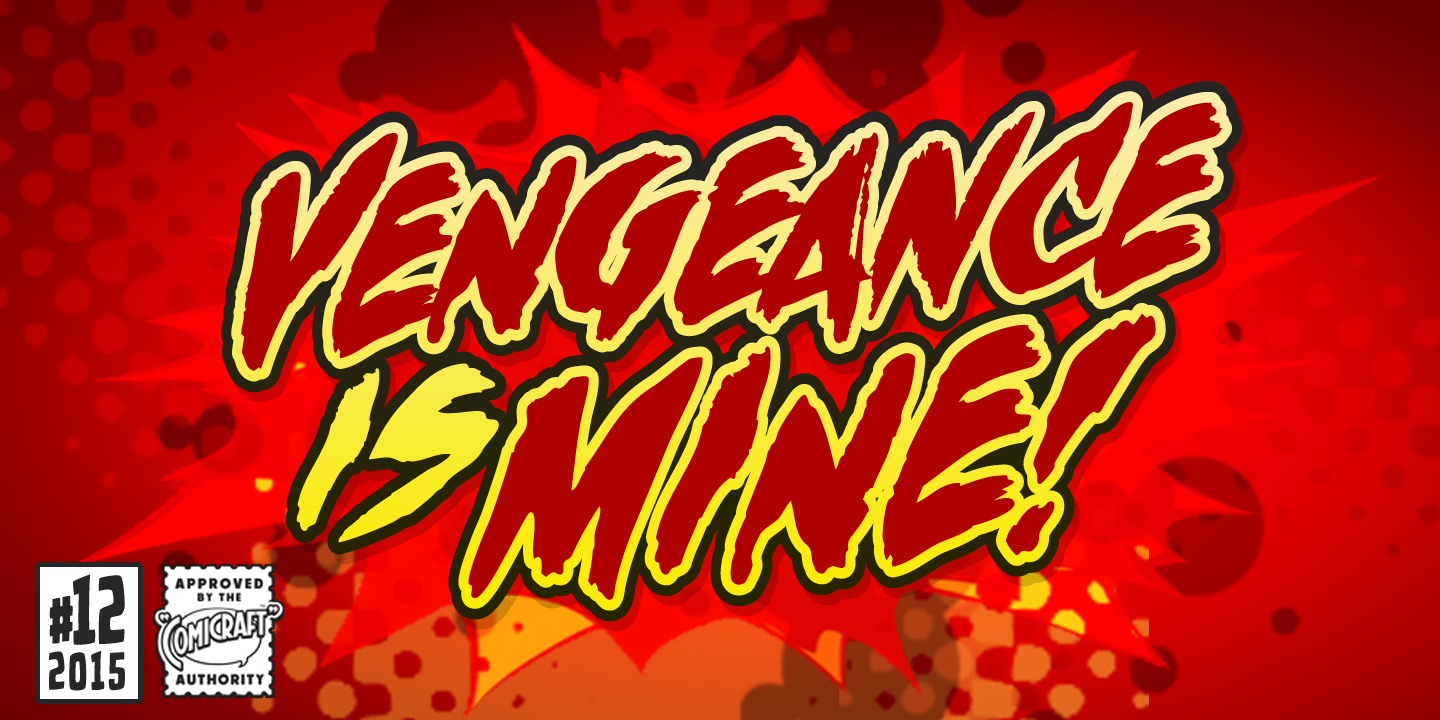
The Vengeance Is Mine Font is an electrifying choice for projects that demand a dark, gritty, and intensely dramatic aesthetic with an undeniable edge. It’s perfectly suited for horror movie titles, thriller book covers, heavy metal album art, dark graphic novels, posters for suspenseful events, and any design that requires a powerful, aggressive, and highly impactful typeface. Its unsettling and commanding character makes it ideal for conveying a sense of danger, mystery, and raw emotion.
What makes Vengeance Is Mine Font so exciting is its inherent ability to imbue text with a palpable sense of tension and foreboding. It often features jagged edges, sharp points, and a distressed or fractured appearance, giving your words an immediate sense of menace and high stakes. This font isn't just about reading; it's about feeling the weight of its message, drawing the viewer into a narrative of conflict and consequence. It excels at delivering maximum visual impact in headlines and display contexts, ensuring your messages are unforgettable and undeniably potent. Its unique design evokes a feeling of visceral power and a relentless pursuit of justice or retribution.
The Vengeance Is Mine Font family typically focuses on variations that enhance its aggressive and impactful nature, as it is primarily a display typeface. You will generally find a strong regular style that embodies its core dramatic aesthetic. Given its specific design purpose, extensive weight variations are less common, but some versions might offer subtle stylistic alternates or different levels of distress or grunge effects to amplify its raw and unsettling appeal. The emphasis is on providing a consistent yet visually arresting identity that resonates with its intense and dark inspirations.
Whether you're designing a terrifying film poster, crafting a compelling narrative for a suspenseful video game, or creating promotional materials that aim to provoke a strong emotional response, the Vengeance Is Mine Font Free Download offers an indispensable tool. Its artistic appeal and commanding visual presence make it a premier choice for any project that requires a typeface of exceptional intensity and distinctive character.